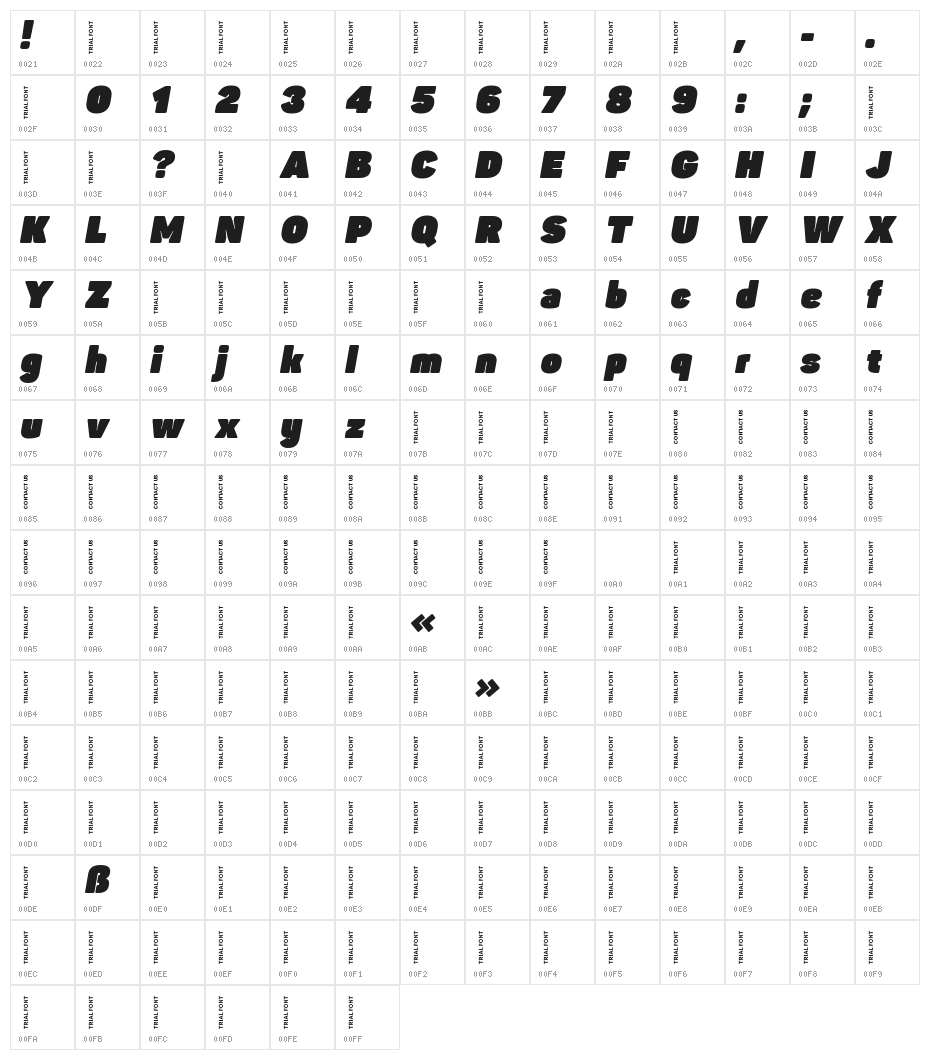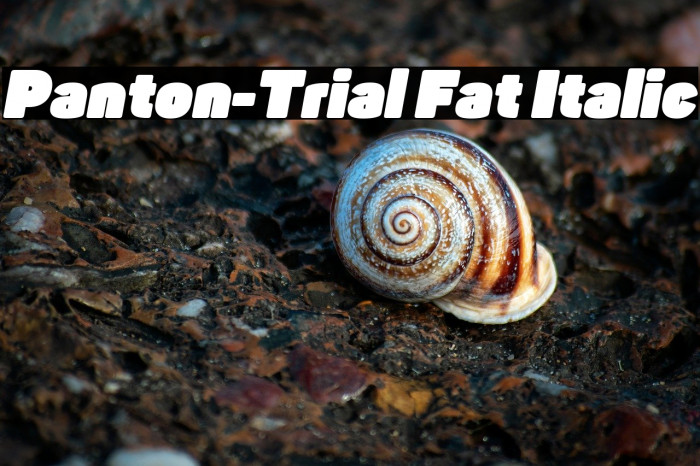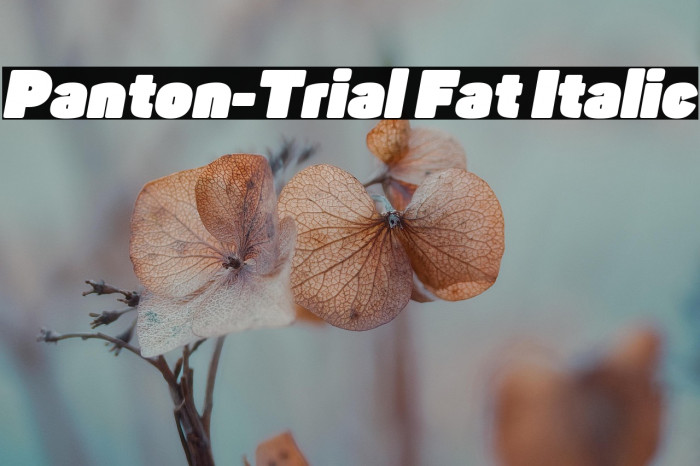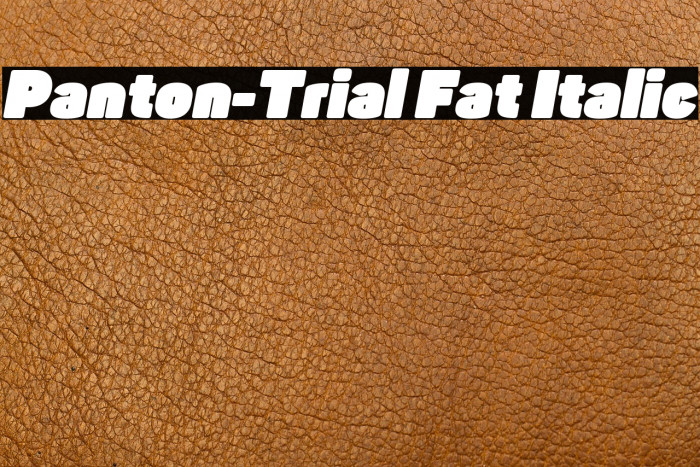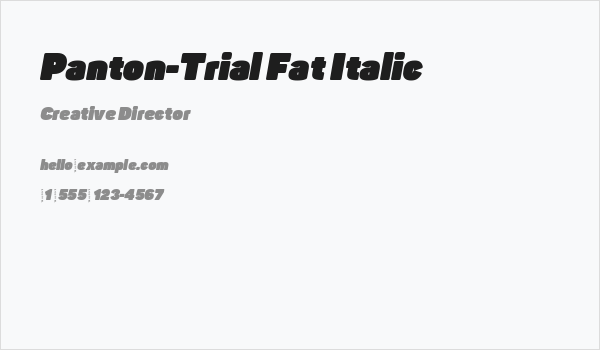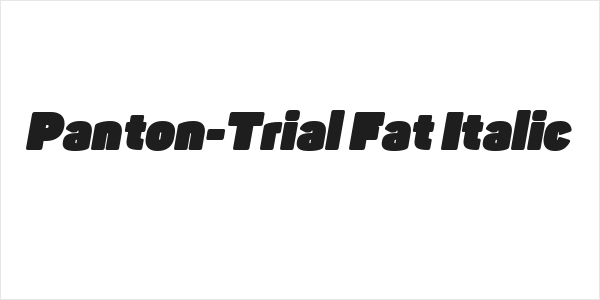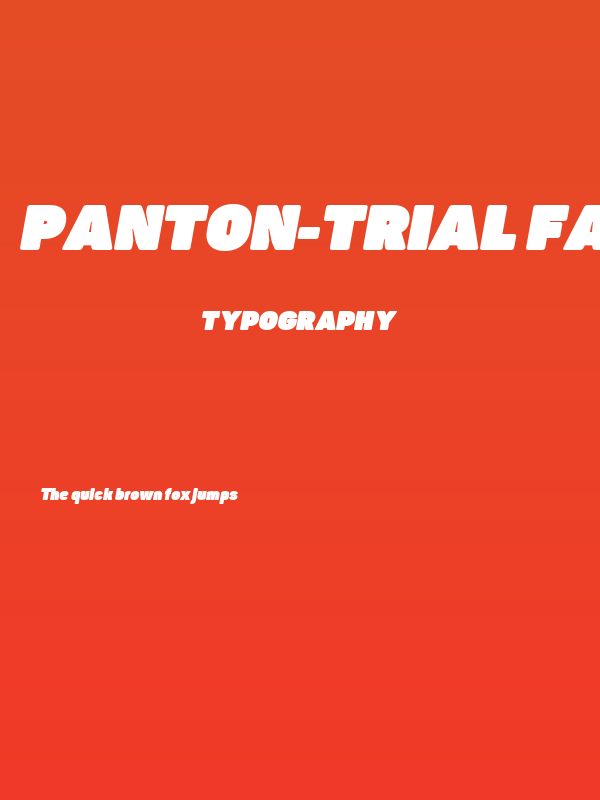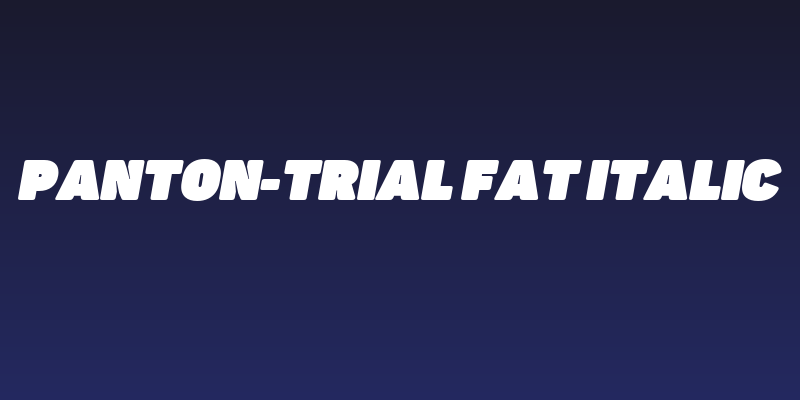
Panton-Trial Fat Italic Font
Panton-Trial Fat Italic Description
This font features a bold and robust design with a strong presence. The characters are thick and rounded, giving them a friendly yet assertive appearance. The italic style adds a dynamic and energetic feel, making it suitable for attention-grabbing headlines or impactful branding. The uppercase and lowercase letters maintain a consistent weight, ensuring readability and uniformity. The numerals are equally bold, complementing the overall aesthetic. Special characters are designed with the same boldness, ensuring they stand out. The font's style is modern and versatile, making it ideal for a variety of design projects.